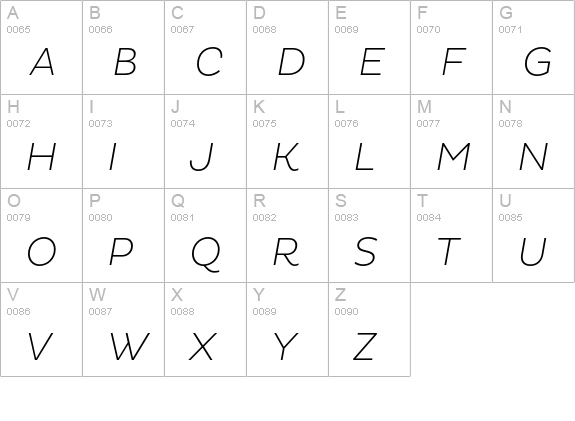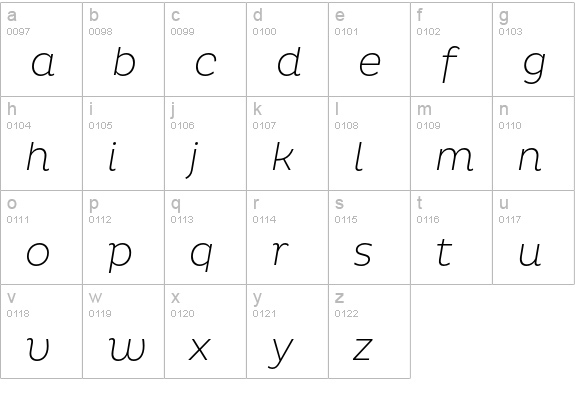
Pluto ExtraLight Italic Font Details
Pluto ExtraLight Italic is an airy, ultra-refined, italic variant in the Pluto typeface family \xE2\x80\x94 well suited to minimalist headlines and refined display use.
Introducing Pluto ExtraLight Italic font - a sleek and modern typeface designed to bring a touch of sophistication to your design projects. With its delicate curves and elegant slant, Pluto ExtraLight Italic is perfect for adding a subtle emphasis and style to your text. This font is not only visually appealing but also highly legible, making it ideal for a wide range of applications, from branding and advertising to editorial design and web content. The light weight of the font gives it a delicate and refined appearance, while the italic styling adds a touch of flair and creativity. Best of all, Pluto ExtraLight Italic font is available for free download at FontsMarket.com. So you can easily add this versatile and stylish typeface to your font collection without any cost. Don't miss out on the opportunity to enhance your designs with this beautiful and modern font. Download Pluto ExtraLight Italic today and take your projects to the next level!